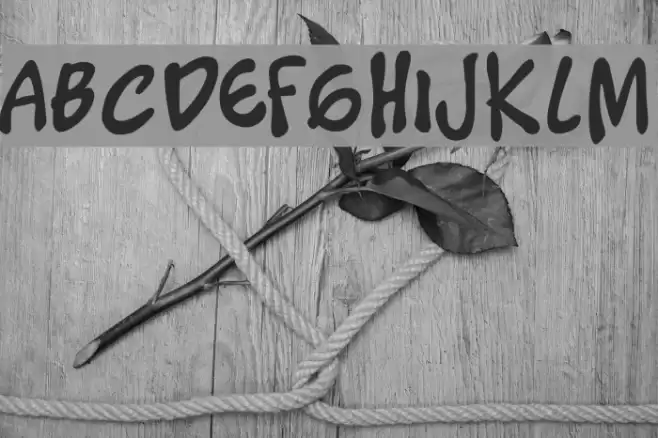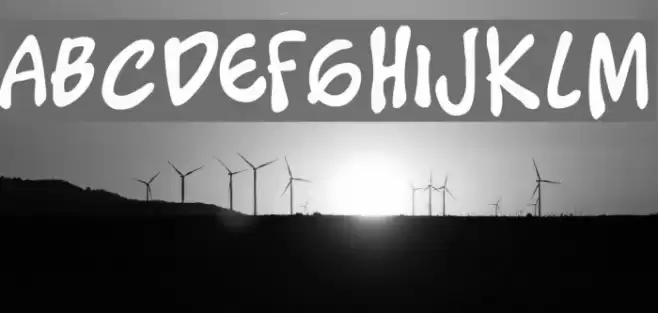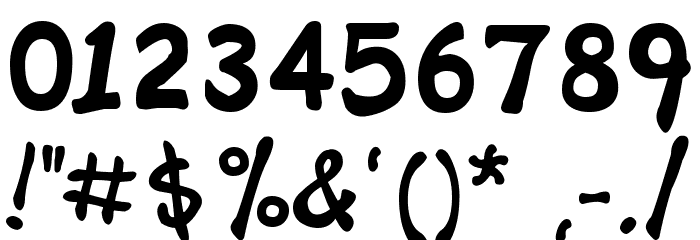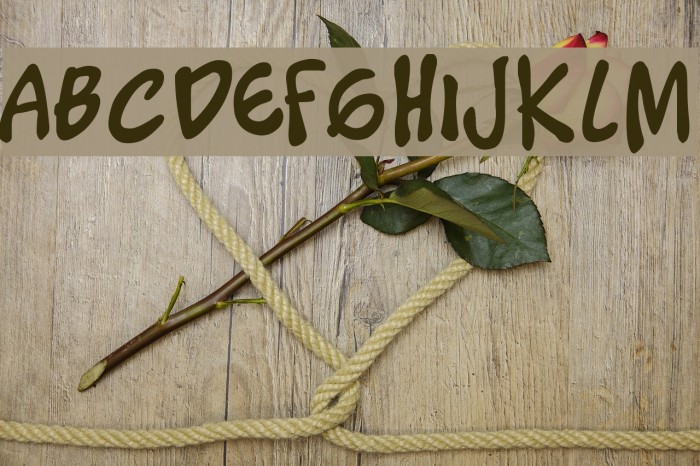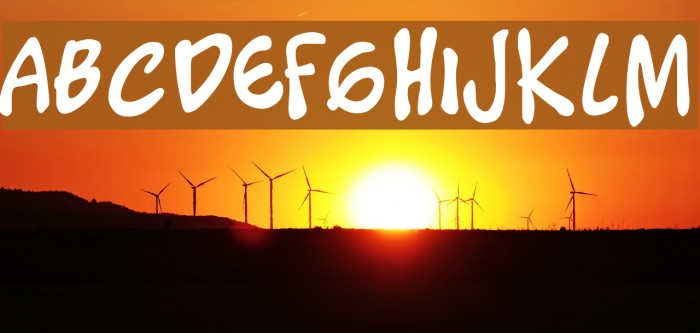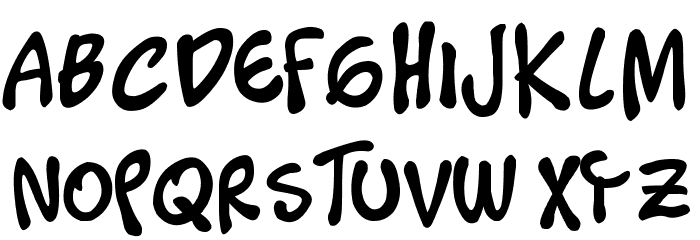
Timotheos Font
Timotheos Description
This font features a playful and dynamic handwritten style, characterized by its bold and slightly irregular strokes. The letters have a casual and informal appearance, with a consistent thickness that gives them a strong presence. The rounded edges and flowing curves add a sense of movement and energy, making it suitable for creative and expressive projects. The numbers and special characters maintain the same lively aesthetic, ensuring a cohesive look across all text elements.
A bold, playful handwritten font with dynamic strokes and rounded edges from Cartoon fonts.
- Proposed Projects: Ideal for children's books, greeting cards, playful branding, and creative posters.
- Overall Style: Playful